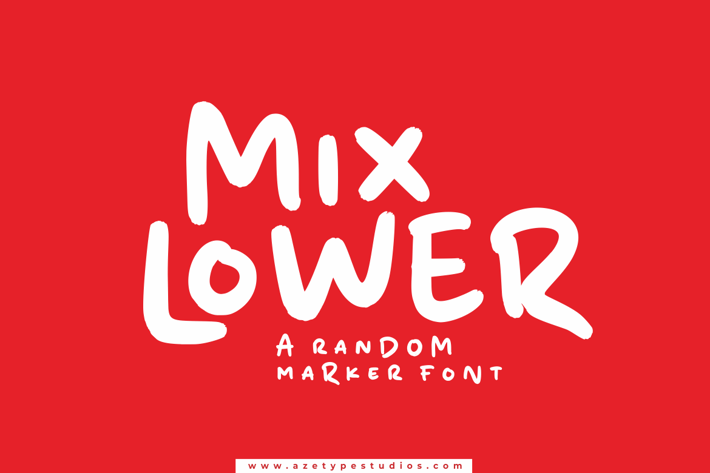
Mix Lower
Introducing, Mix Lower is a random marker font with the fun style suitable for your design project needs, such as; unique theme, social media posts, your quotes, overlays on images, fun logos, posters, print needs, website banners, and more.
A set of uppercase and lowercase glyphs
Number, symbol, and punctuation
Multilingual accent ( ́ ̂ ̀ ̊ ̈ ̃ ̄ ̌ ̆ ̨ ̧ ̇ ̋ ̒ ̦ ̍ ̶ )
Some multilingual glyphs (ÆØŒæðøœß¡¿)